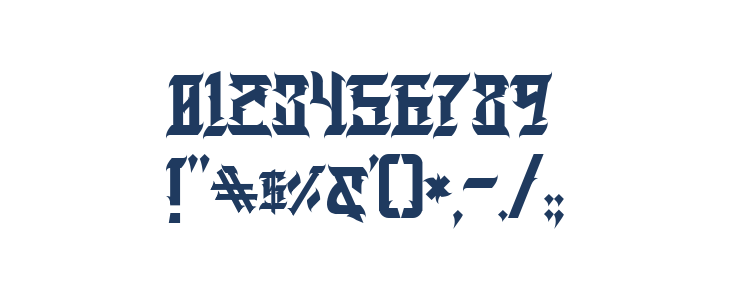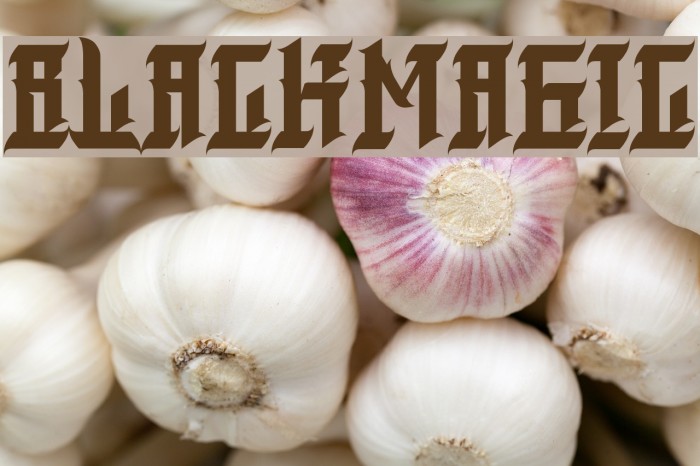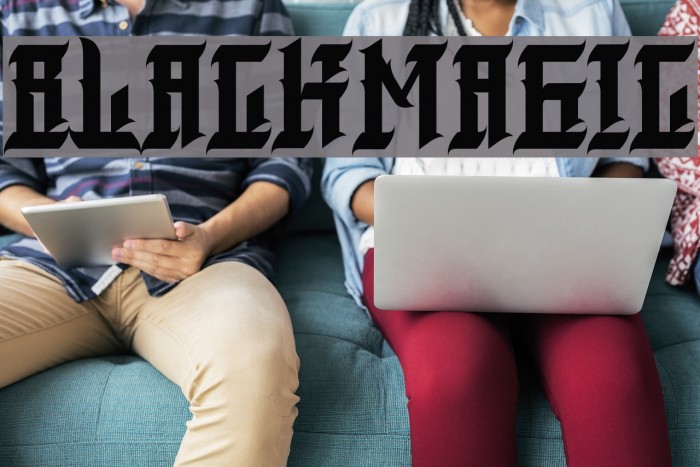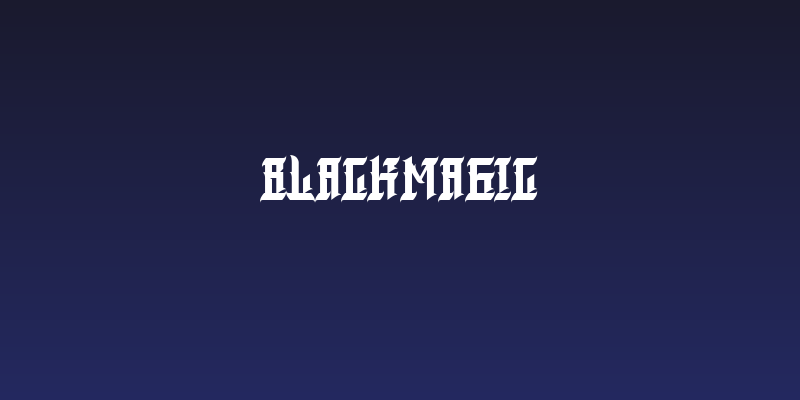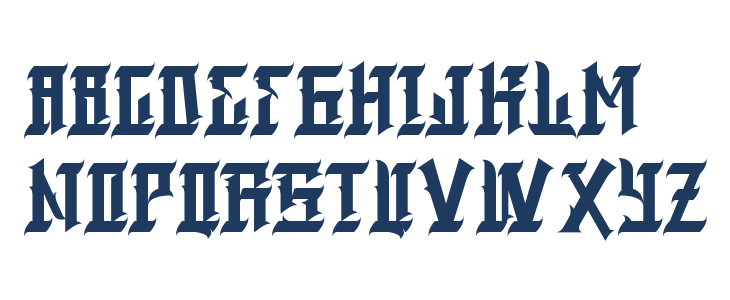
blackmagic Font
blackmagic Description
This font features a bold and striking design with sharp, angular edges and a gothic influence. The characters are heavily stylized, with dramatic serifs and a sense of movement that suggests a medieval or fantasy theme. The uppercase and lowercase letters maintain a consistent style, with the numbers and special characters following suit. The overall appearance is highly decorative, making it suitable for projects that require a strong visual impact. The font's intricate details and bold presence make it stand out, ideal for creating a dramatic and intense atmosphere.
| Proposed Projects | Ideal for fantasy-themed designs, video game titles, movie posters, and branding that requires a strong, dramatic presence. |